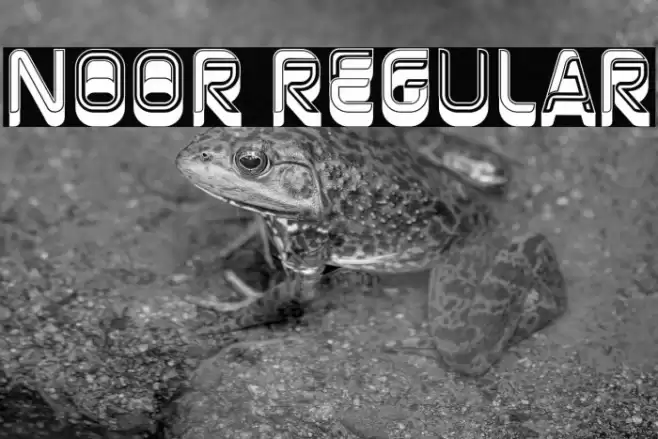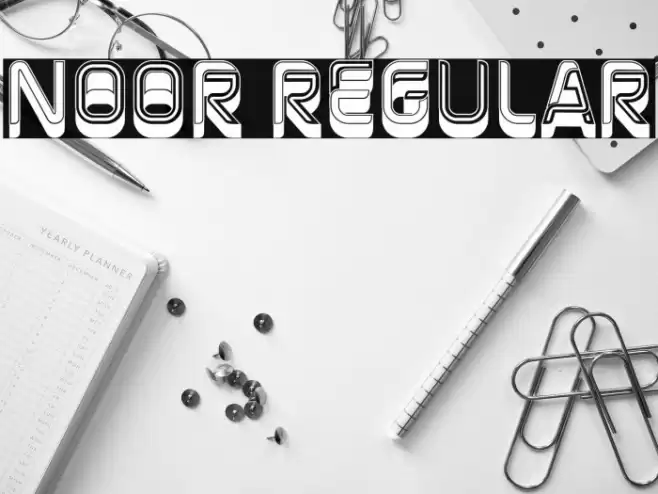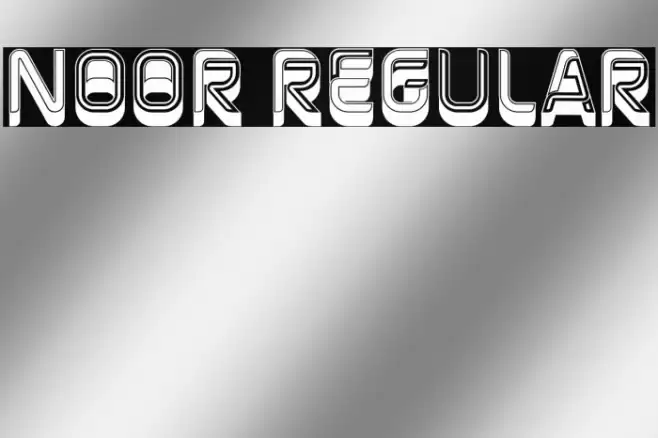
Noor Regular Font
Noor Regular Description
This font features a bold, three-dimensional appearance with a distinct shadow effect that gives it depth and a striking visual impact. The characters are uppercase, with a geometric and structured design that emphasizes clean lines and sharp angles. The shadowing is consistent across all characters, enhancing the font's modern and dynamic feel. The overall style is both futuristic and retro, making it versatile for various design applications. The font's boldness and unique style make it ideal for attention-grabbing headlines and titles.
A bold, 3D font with geometric shapes and shadow effects from Uncategorized fonts.
- Proposed Projects: Ideal for posters, logos, video game titles, and any project requiring a bold, eye-catching typeface.